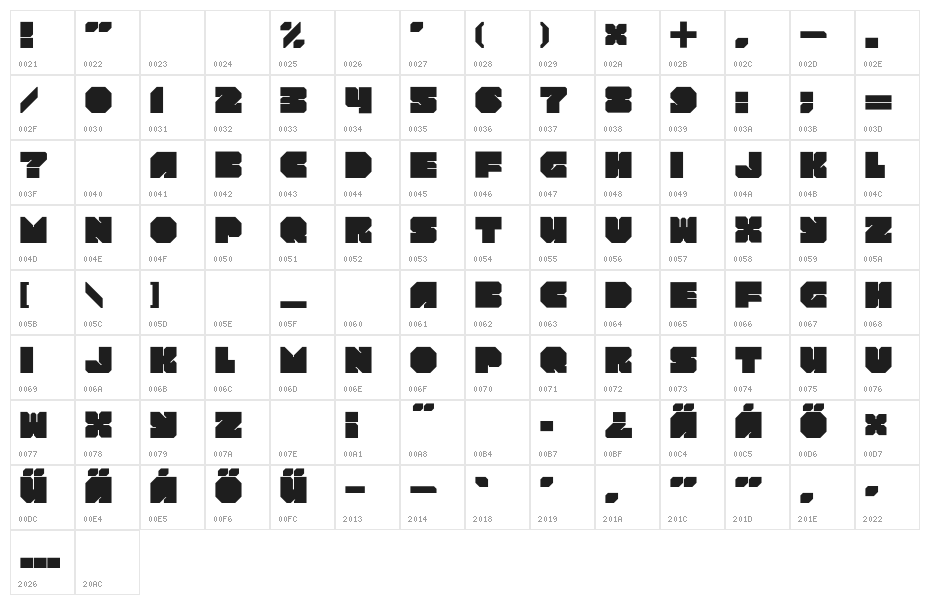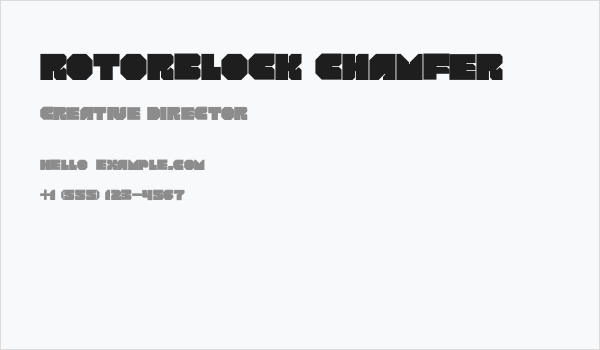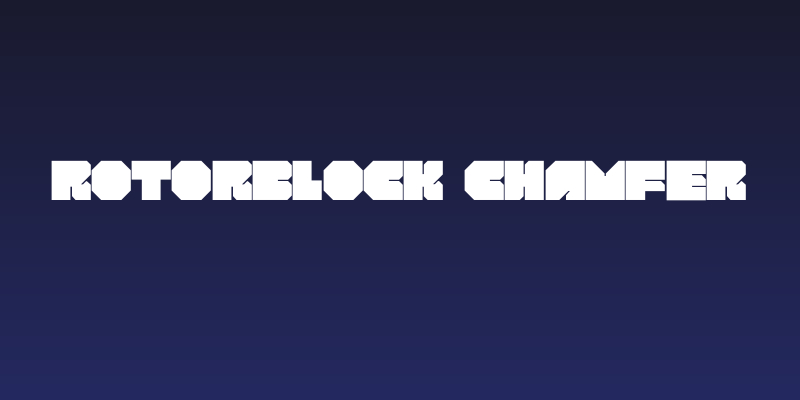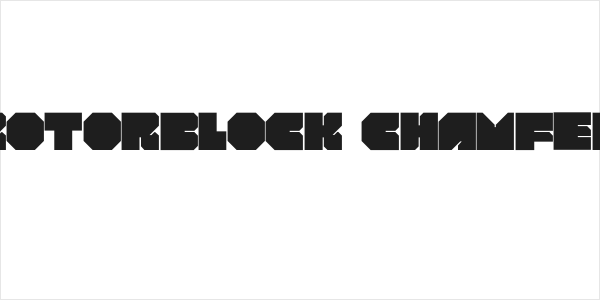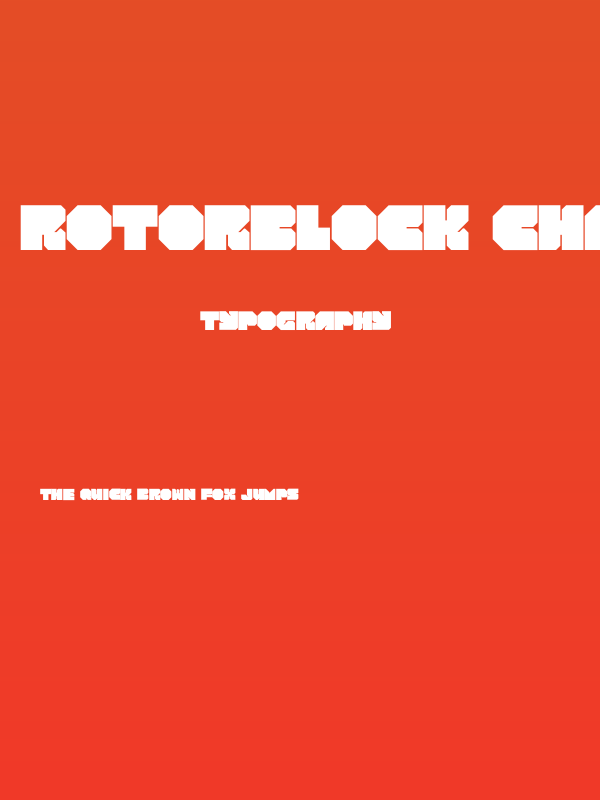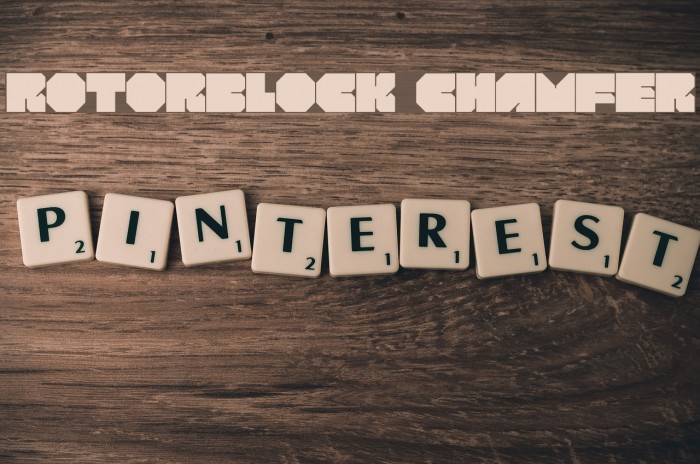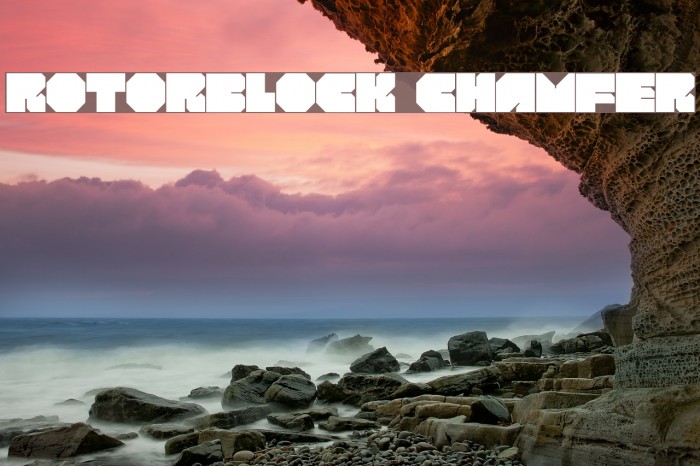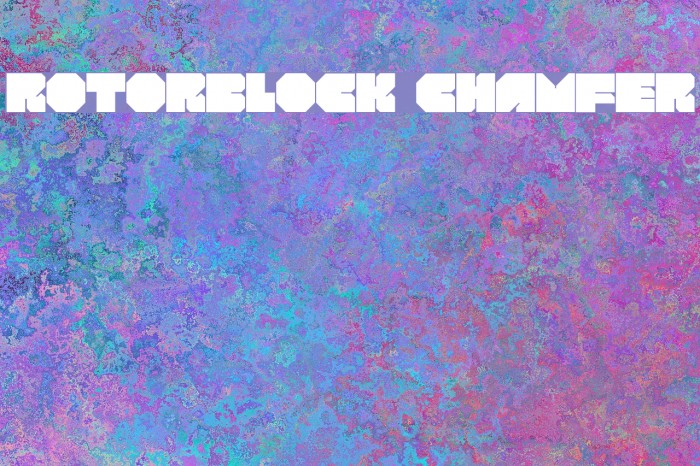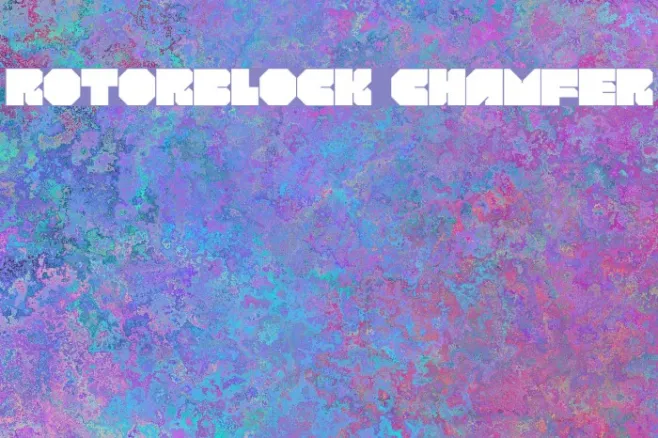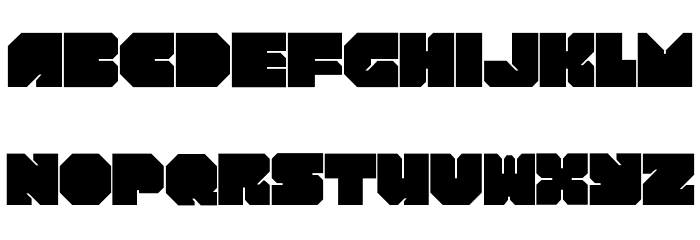
ROTORblock Chamfer Font
ROTORblock Chamfer Description
This font features a bold, geometric design with a distinct chamfered edge on each character, giving it a modern and industrial feel. The characters are constructed with thick, uniform strokes that create a strong visual impact. The uppercase and lowercase letters share a consistent style, maintaining the boldness and angular cuts throughout. The numbers and special characters are designed to match the overall aesthetic, ensuring a cohesive look across all elements. This font is ideal for projects that require a striking and contemporary appearance.
| Proposed Projects | Ideal for branding, posters, headlines, and any design needing a strong, modern aesthetic. |